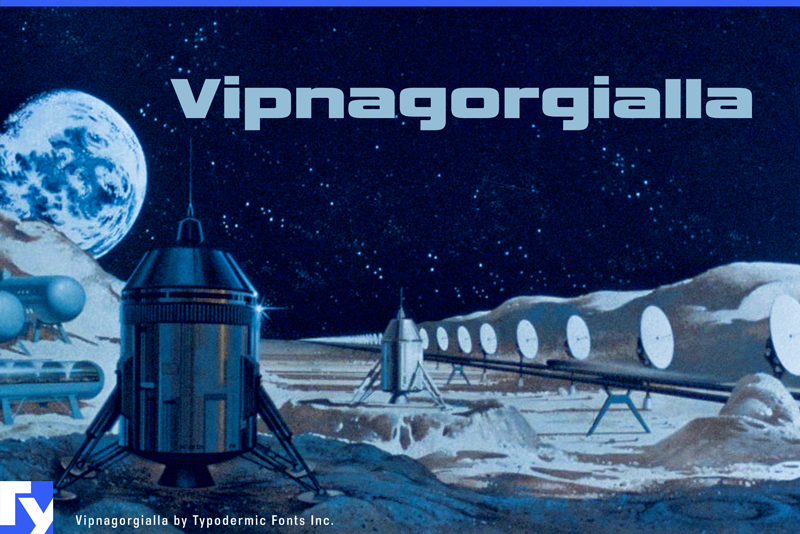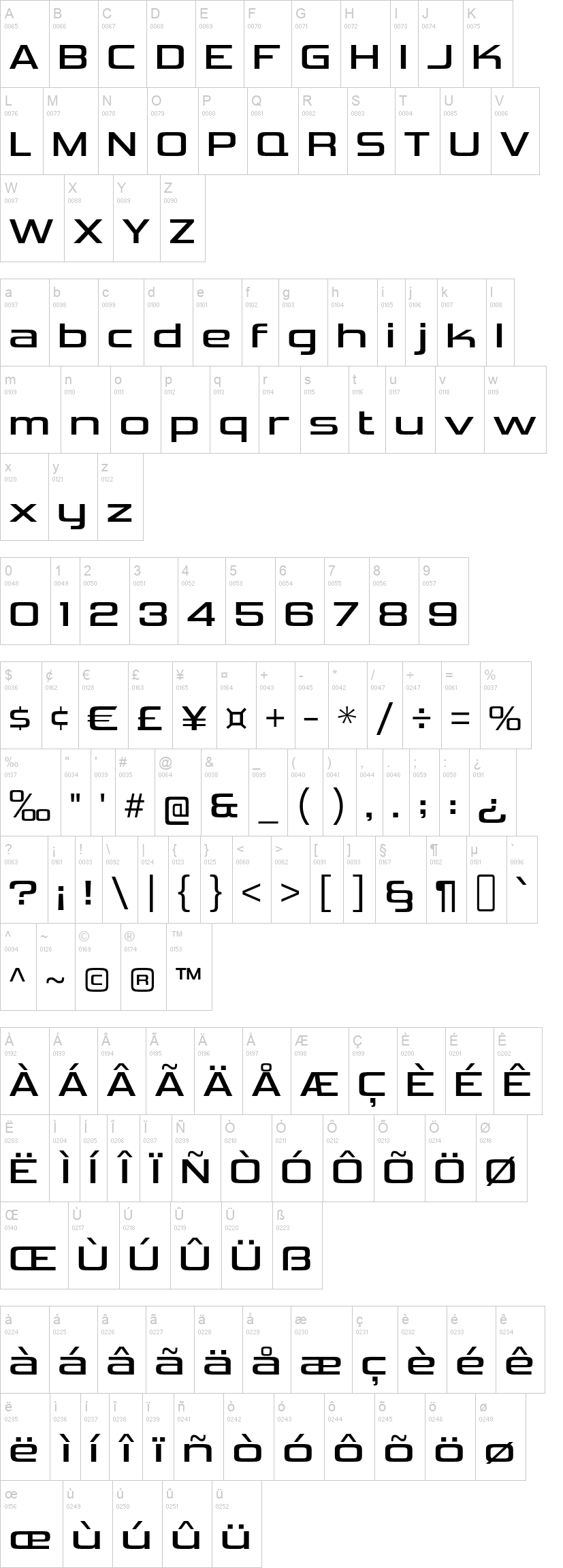
vipnagorgialla rg it.otfvipnagorgialla bd.otfvipnagorgialla bd it.otfNote of the authorVipnagorgialla is a broad, square headline typeface. It was influenced by the late 1960s Dodge/Plymouth logotype, but with a pared-down style for a late 1970s feel. Vipnagorgialla's industrial style lends your message a sleek authority. There are five weights and obliques to choose from. Most Latin-based European, Vietnamese, Greek, and most Cyrillic-based writing systems are supported, including the following languages. Afaan Oromo, Afar, Afrikaans, Albanian, Alsatian, Aromanian, Aymara, Azerbaijani, Bashkir, Bashkir (Latin), Basque, Belarusian, Belarusian (Latin), Bemba, Bikol, Bosnian, Breton, Bulgarian, Buryat, Cape Verdean, Creole, Catalan, Cebuano, Chamorro, Chavacano, Chichewa, Crimean Tatar (Latin), Croatian, Czech, Danish, Dawan, Dholuo, Dungan, Dutch, English, Estonian, Faroese, Fijian, Filipino, Finnish, French, Frisian, Friulian, Gagauz (Latin), Galician, Ganda, Genoese, German, Gikuyu, Greenlandic, Guadeloupean Creole, Haitian Creole, Hawaiian, Hiligaynon, Hungarian, Icelandic, Igbo, Ilocano, Indonesian, Irish, Italian, Jamaican, Kaingang, Khalkha, Kalmyk, Kanuri, Kaqchikel, Karakalpak (Latin), Kashubian, Kazakh, Kikongo, Kinyarwanda, Kirundi, Komi-Permyak, Kurdish, Kurdish (Latin), Kyrgyz, Latvian, Lithuanian, Lombard, Low Saxon, Luxembourgish, Maasai, Macedonian, Makhuwa, Malay, Maltese, Māori, Moldovan, Montenegrin, Nahuatl, Ndebele, Neapolitan, Norwegian, Novial, Occitan, Ossetian (Latin), Papiamento, Piedmontese, Polish, Portuguese, Quechua, Rarotongan, Romanian, Romansh, Russian, Rusyn, Sami, Sango, Saramaccan, Sardinian, Scottish Gaelic, Serbian, Serbian (Latin), Shona, Sicilian, Silesian, Slovak, Slovenian, Somali, Sorbian, Sotho, Spanish, Swahili, Swazi, Swedish, Tagalog, Tahitian, Tajik, Tatar, Tetum, Tongan, Tshiluba, Tsonga, Tswana, Tumbuka, Turkish, Turkmen (Latin), Tuvaluan, Ukrainian, Uzbek, Uzbek (Latin), Venda, Venetian, Vepsian, Vietnamese, Võro, Walloon, Waray-Waray, Wayuu, Welsh, Wolof, Xavante, Xhosa, Yapese, Zapotec, Zarma, Zazaki, Zulu and Zuni.